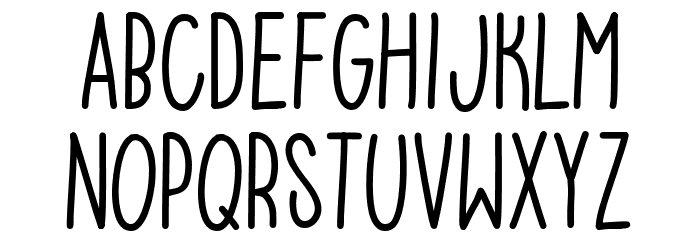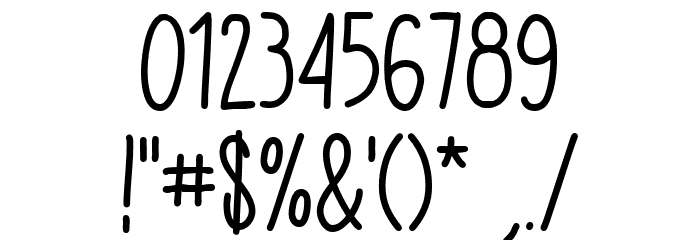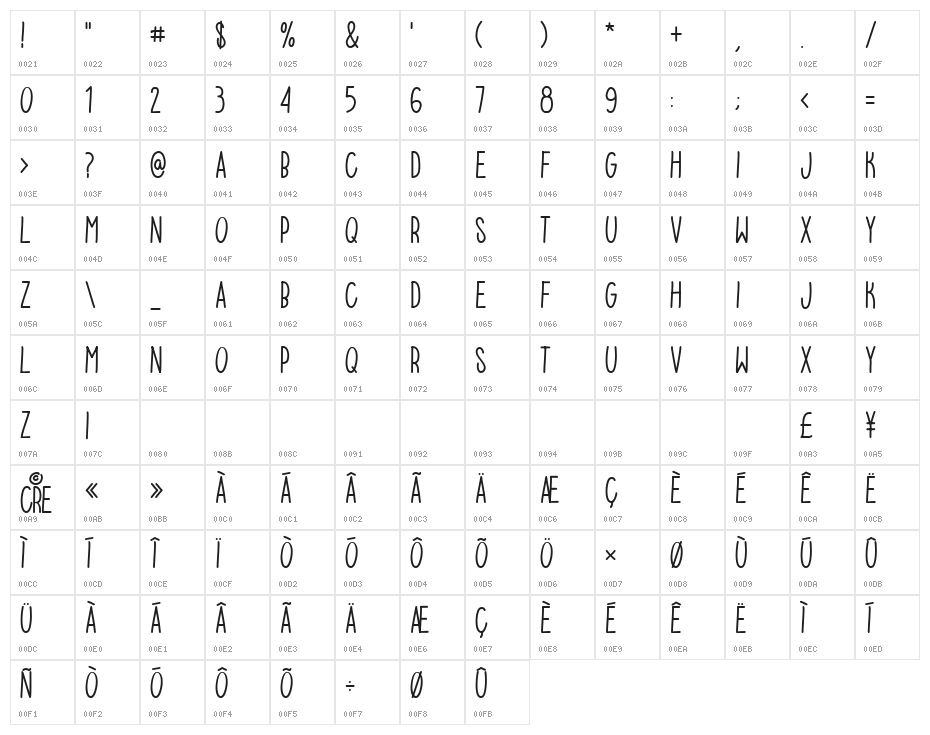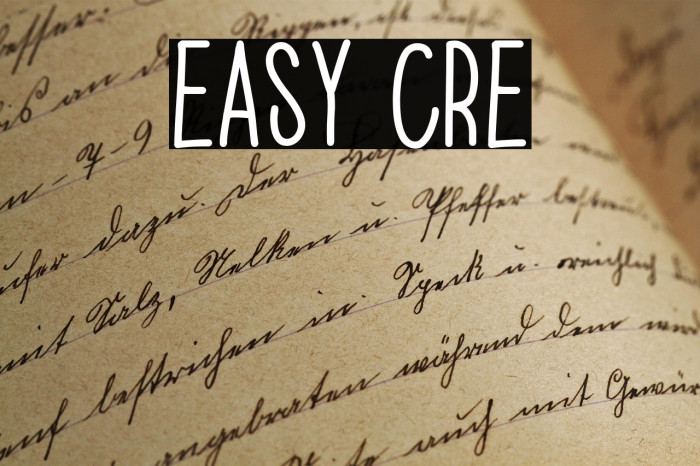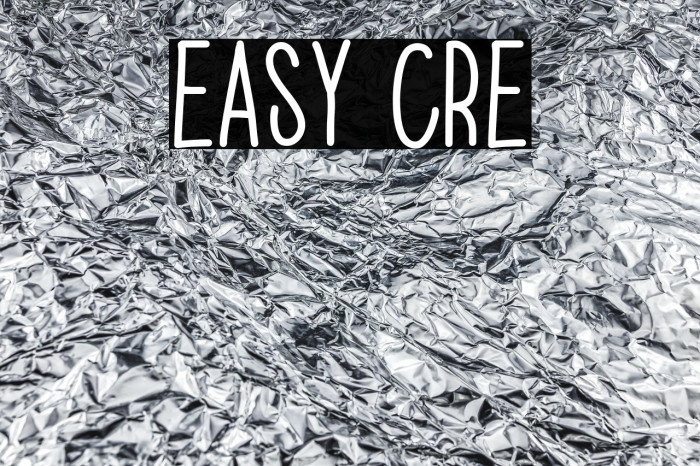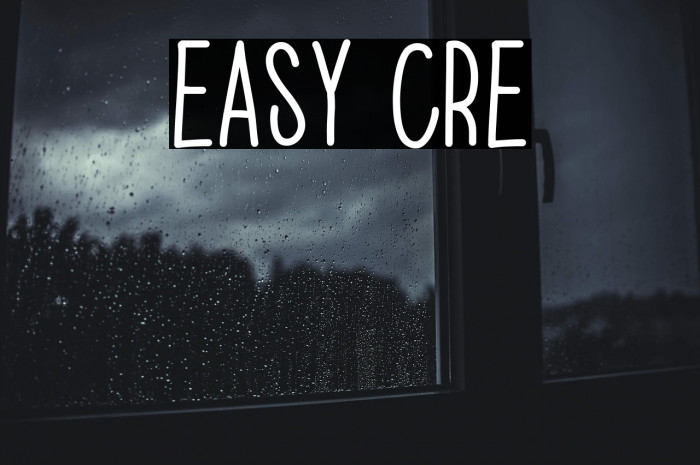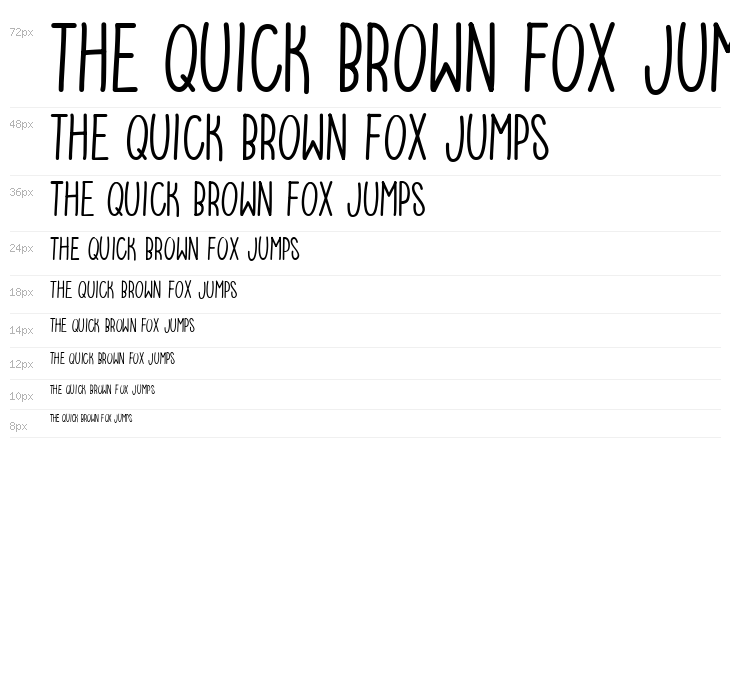
easy cre Font
This font features a playful and casual handwritten style, characterized by its tall, narrow letters and slightly irregular strokes. The uppercase and lowercase letters maintain a consistent height, giving it a uniform appearance. The numerals and special characters are designed to match the overall aesthetic, with smooth curves and a friendly demeanor. The font's informal nature makes it suitable for projects that require a personal touch, such as invitations, greeting cards, or children's books. Its legibility and charm make it a versatile choice for various design needs.
A playful, handwritten font with tall, narrow letters and a casual style.
- Font: easy cre
- Proposed Projects: Ideal for invitations, greeting cards, children's books, and informal branding.
- Category: Handwritten
- Overall Style: Casual
- Use Case: Headlines, Logos, Informal Text